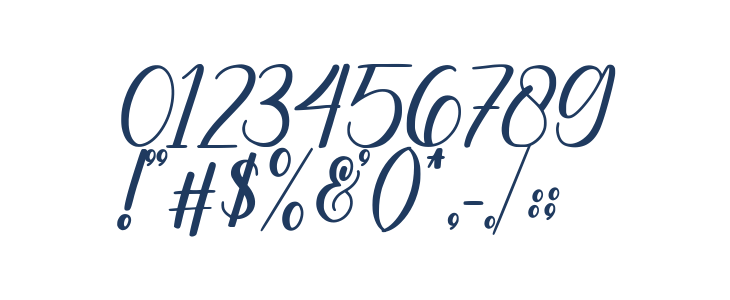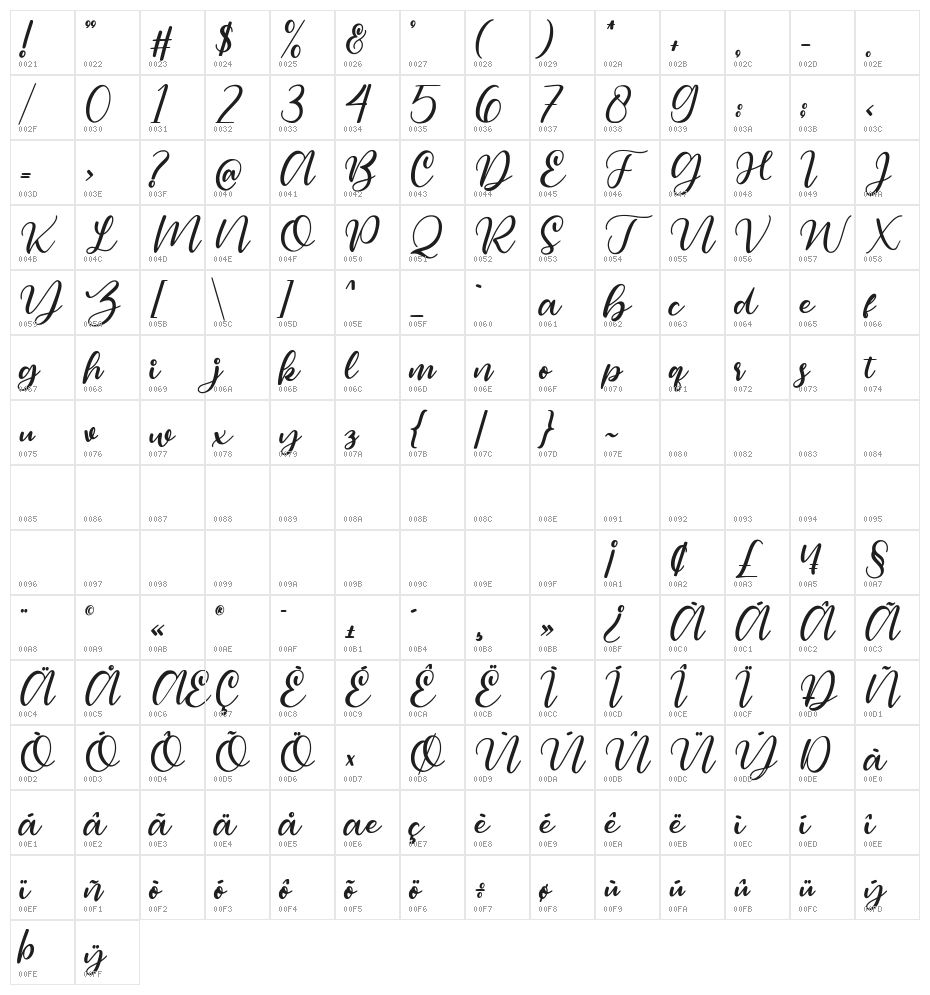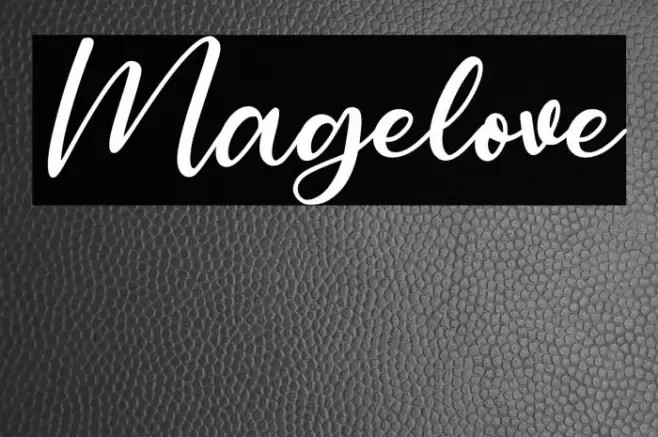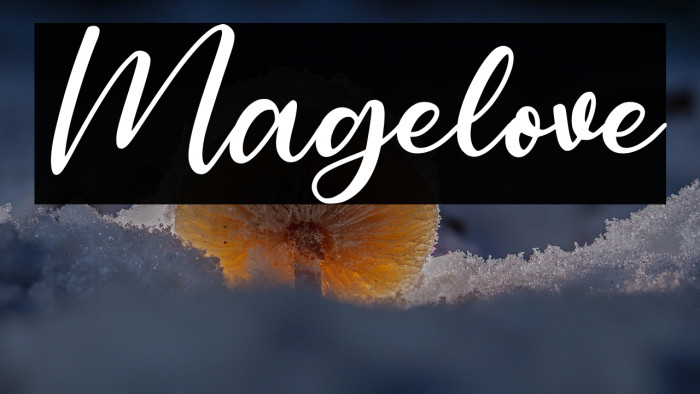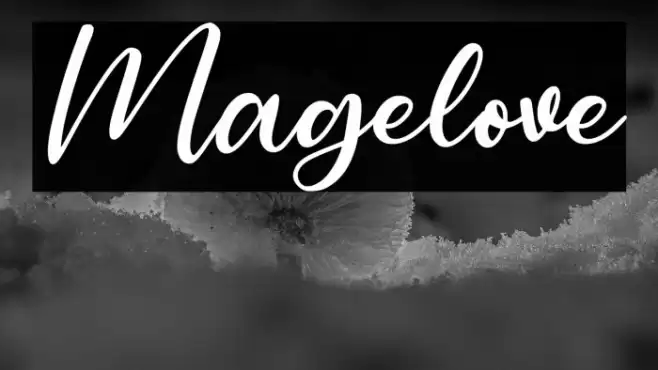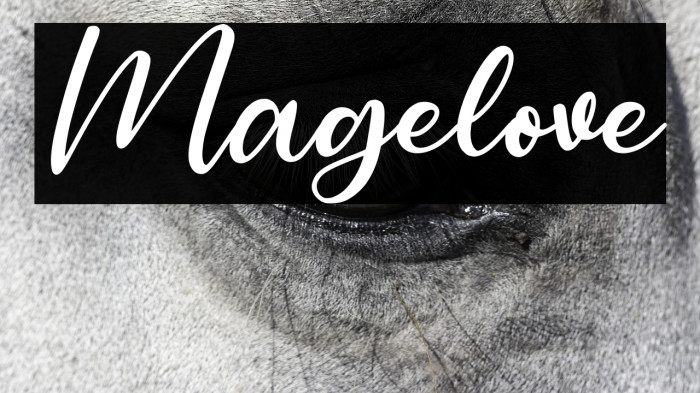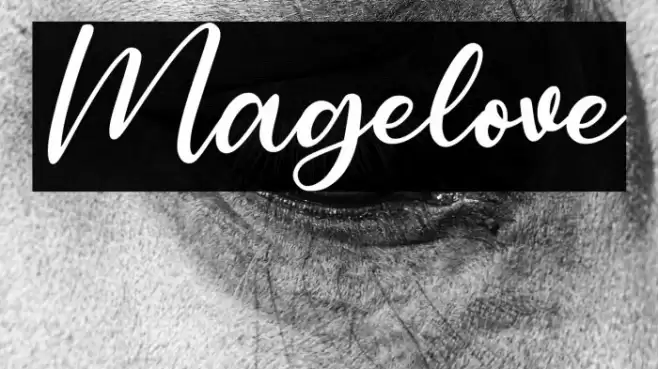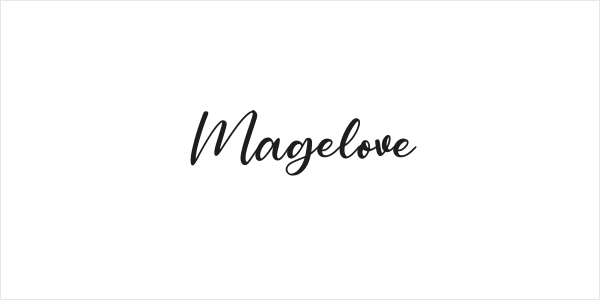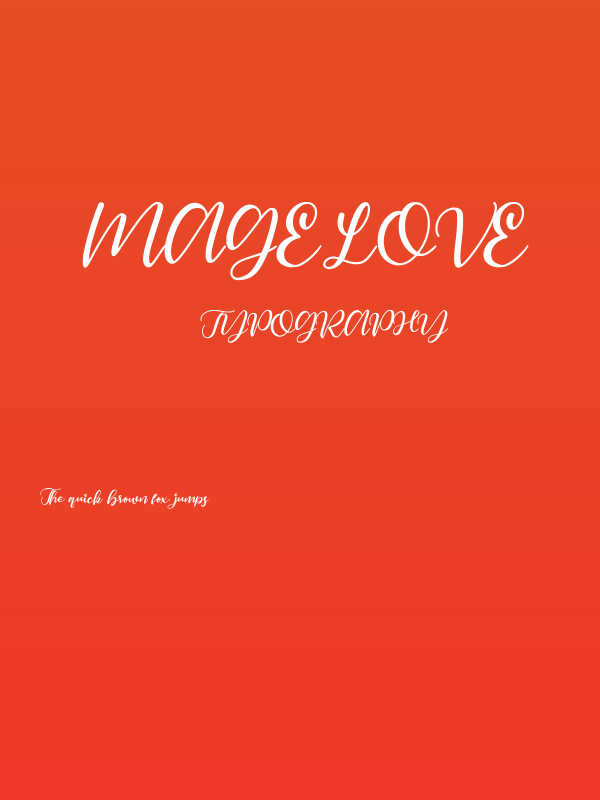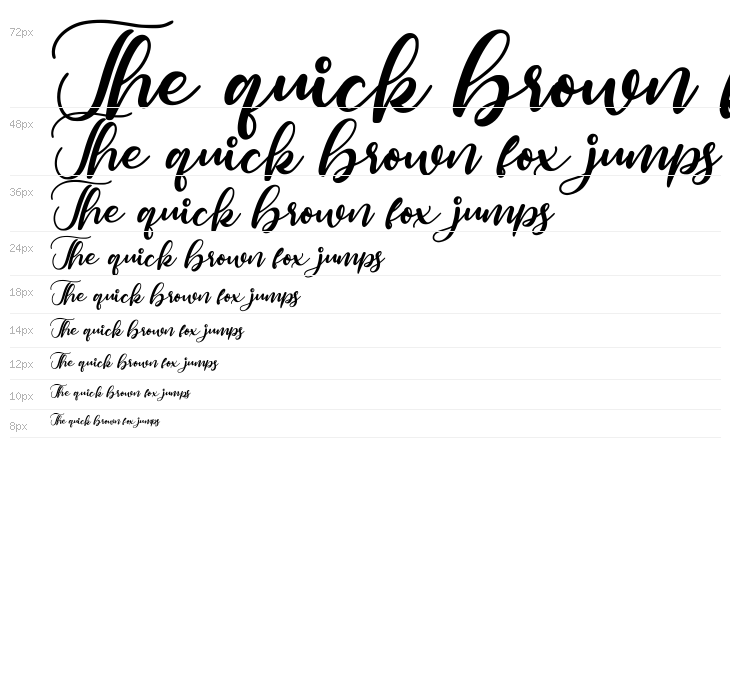
Magelove Font
Magelove Description
This font features a flowing, cursive script style that exudes elegance and sophistication. The uppercase letters are characterized by their sweeping curves and loops, creating a sense of movement and grace. The lowercase letters maintain a consistent flow, with smooth connections between each character, enhancing readability while retaining a stylish flair. The numerals are designed with a similar fluidity, ensuring they complement the overall aesthetic. Special characters are thoughtfully integrated, maintaining the font's cohesive look. This font is perfect for projects that require a touch of elegance and personal expression.
| Proposed Projects | Ideal for wedding invitations, branding, greeting cards, and elegant logo designs. |